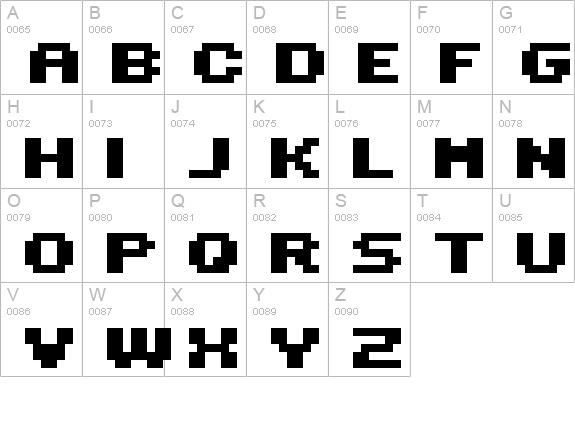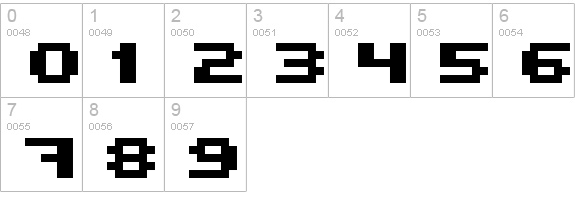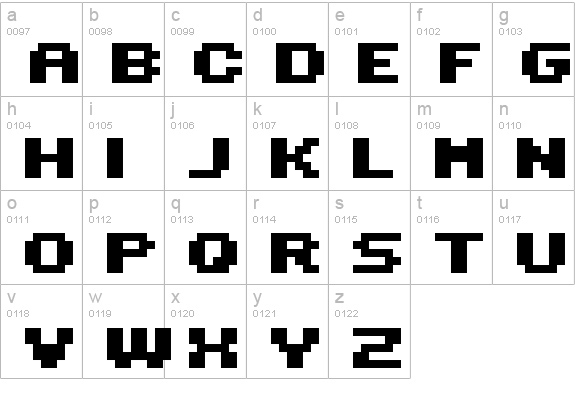
Fat-Normal is the standard, neutral variant in the Fat typeface family \xE2\x80\x94 well suited to general body text, paragraphs, and standard typographic work.
Introducing Fat-Normal font, a bold and eye-catching typeface that effortlessly makes a statement. With its thick and robust letterforms, Fat-Normal font exudes a sense of strength and confidence while maintaining a touch of modern elegance. This versatile font is perfect for headlines, logos, posters, and any design project that requires a bold and impactful look. The best part? Fat-Normal font is available for free download at FontsMarket.com, making it accessible to all designers and creatives looking to add a bold touch to their work. Don't miss out on this opportunity to enhance your designs with this striking typeface. Download Fat-Normal font today and elevate your projects with its powerful presence.